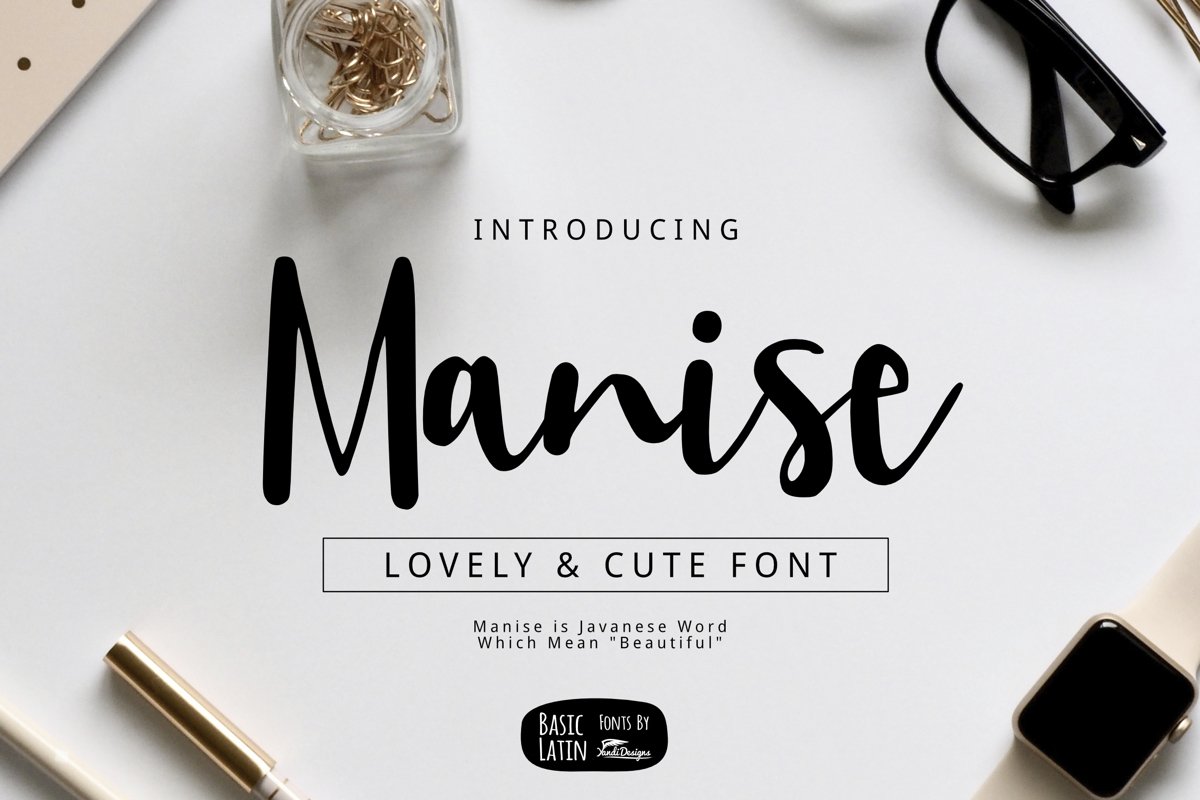
Manise Lovely Script Font
Manise font is simple beautiful multipurpose handmade font , suitable for many project children book, quotes, logo , heading , title etc.